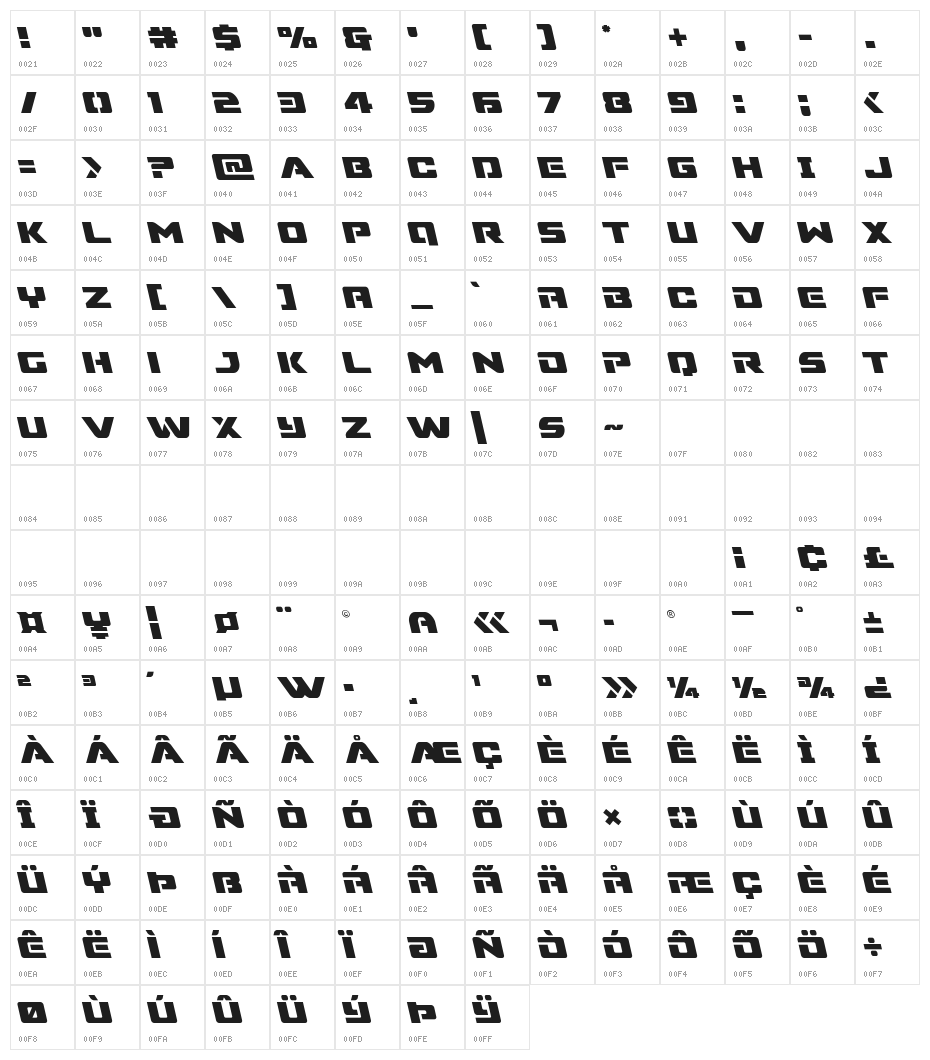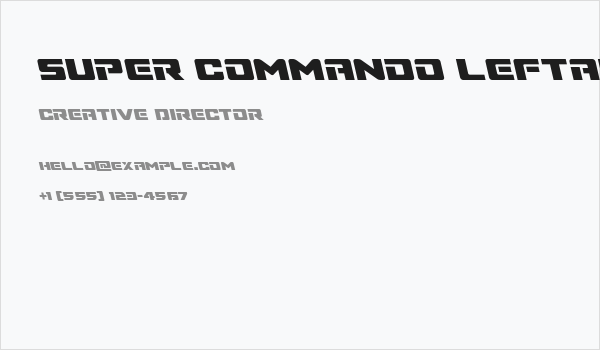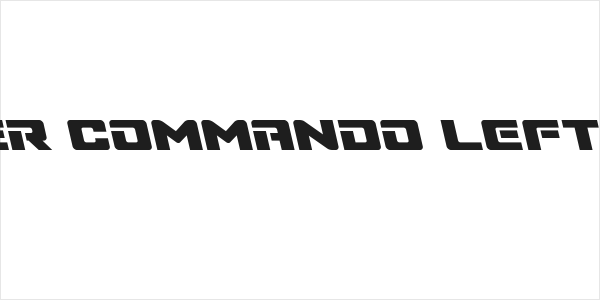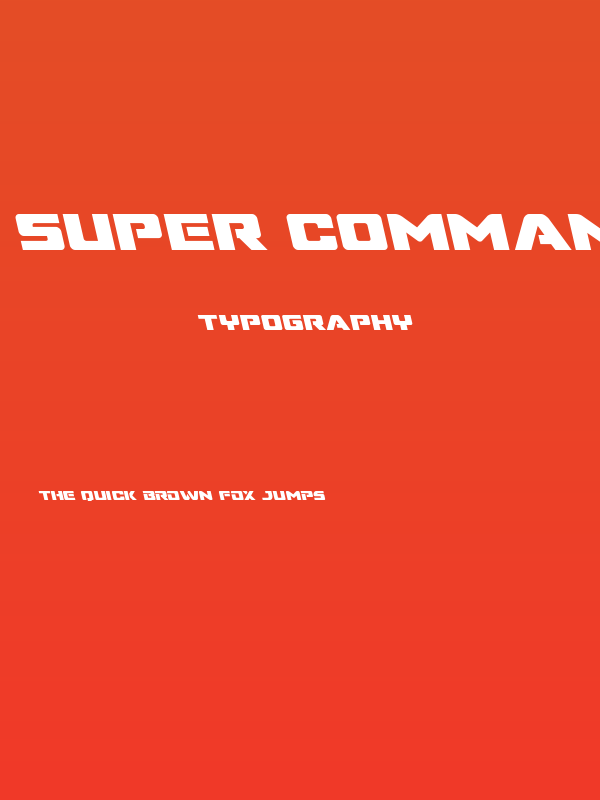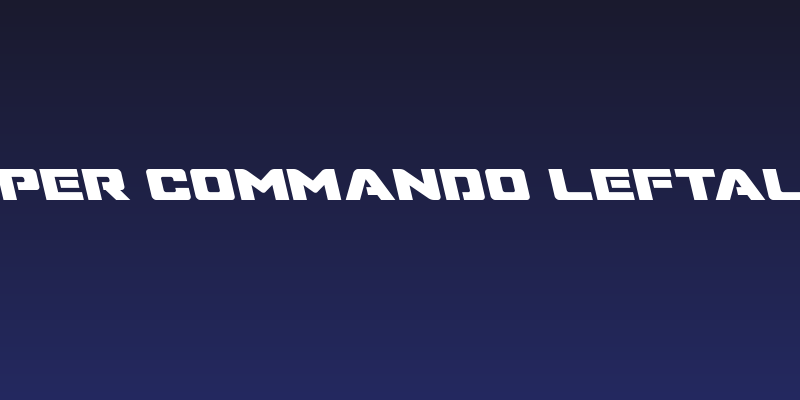
Super Commando Leftalic Font
Super Commando Leftalic Description
This font features a bold, angular design with a strong, commanding presence. The characters are slightly slanted, giving a dynamic and forward-moving appearance. Each letter is crafted with sharp edges and a blocky structure, reminiscent of military or futuristic themes. The uppercase and lowercase letters maintain a consistent style, with the lowercase being slightly smaller but equally impactful. Numbers and special characters follow the same design principles, ensuring uniformity across all glyphs. The overall look is robust and assertive, making it ideal for projects that require a bold statement.
Overall StyleFuturistic, Military
Proposed ProjectsIdeal for video game titles, action movie posters, military-themed branding, and futuristic designs.